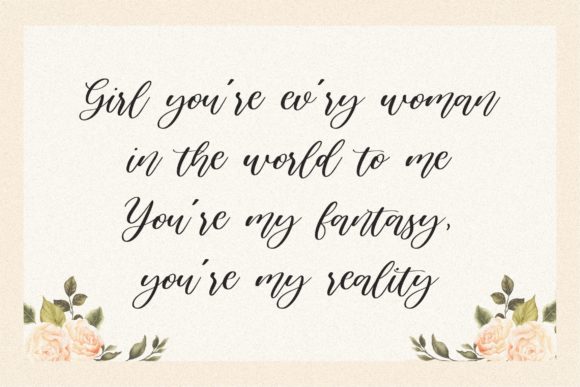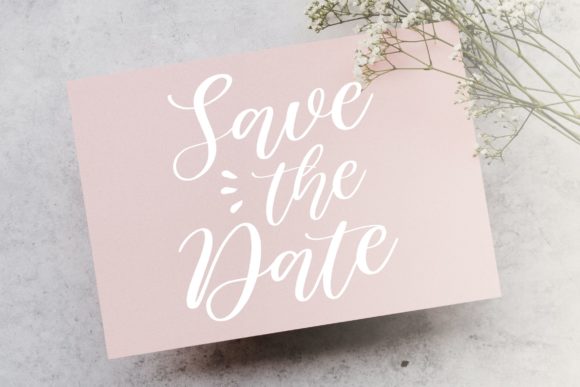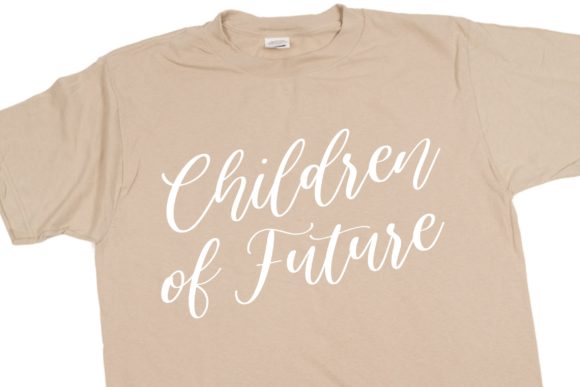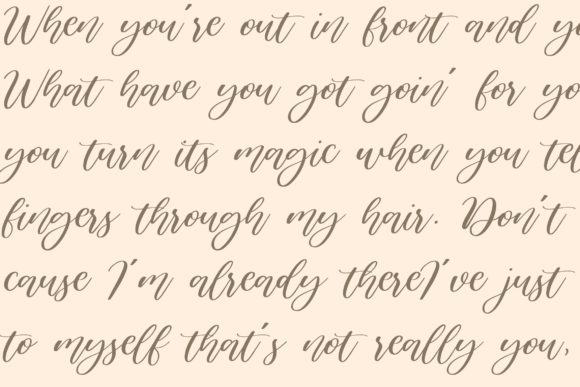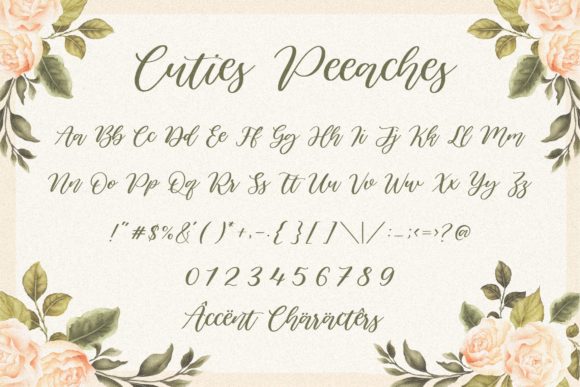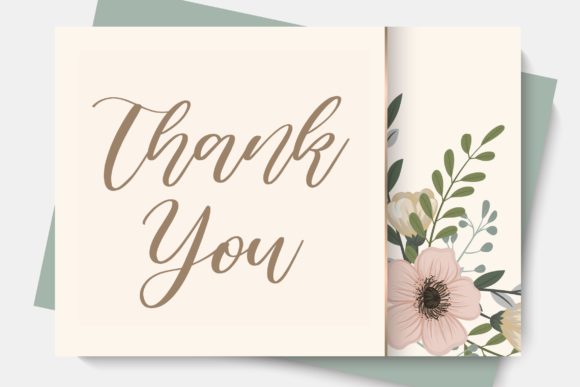
Introducing Cuties Peaches Font: The Ultimate Handwritten Font for Elegant Designs
Are you a designer or crafter looking for a font that can add a touch of elegance and sophistication to your designs? Look no further than Cuties Peaches Font. This incredibly distinct, delicate, and timeless handwritten font is perfect for a wide range of design projects, from wedding invitations and thank you cards to quotes, greeting cards, logos, and business cards.
What Makes Cuties Peaches Font So Special?
Cuties Peaches Font is a unique and beautiful handwritten font that is sure to make your designs stand out. Its delicate and elegant strokes make it perfect for creating sophisticated and eye-catching designs. The font’s timeless quality ensures that it will never go out of style, making it a great investment for designers and crafters who want to create designs that will last.
Wedding invitations, thank you cards, and other event designs require a special kind of font that can convey the elegance and sophistication of the occasion. Cuties Peaches Font is perfect for these types of designs, adding a touch of romance and whimsy to your creations. Whether you’re designing invitations, save-the-dates, or thank you cards, this font is sure to impress.
Ideal for Quote and Greeting Card Designs
Quotes and greeting cards require a font that can convey emotion and personality. Cuties Peaches Font is perfect for these types of designs, adding a touch of warmth and personality to your creations. Whether you’re designing inspirational quotes, birthday cards, or holiday greetings, this font is sure to make your designs stand out.
Great for Logo and Business Card Designs
When it comes to logo and business card designs, you want a font that is professional, yet elegant. Cuties Peaches Font is a great choice for these types of designs, adding a touch of sophistication and style to your creations. Whether you’re designing a logo for a new business or creating business cards for a special event, this font is sure to impress.
Key Features of Cuties Peaches Font
- Incredibly distinct, delicate, and timeless handwritten font
- Perfect for wedding invitations, thank you cards, quotes, greeting cards, logos, and business cards
- Elegant and sophisticated strokes
- Timeless quality that will never go out of style
- Great for designs that require a handwritten touch
Tips for Using Cuties Peaches Font
Here are a few tips for using Cuties Peaches Font in your designs:
- Use it for headings and titles to add a touch of elegance and sophistication
- Pair it with other fonts to create a unique and interesting contrast
- Use it for digital and print designs, including social media graphics, flyers, and brochures
Cuties Peaches Font is a beautiful and elegant handwritten font that is perfect for designers and crafters who want to add a touch of sophistication and style to their designs. With its delicate and timeless strokes, this font is sure to make your designs stand out. Whether you’re designing wedding invitations, quotes, greeting cards, logos, or business cards, Cuties Peaches Font is a great choice.